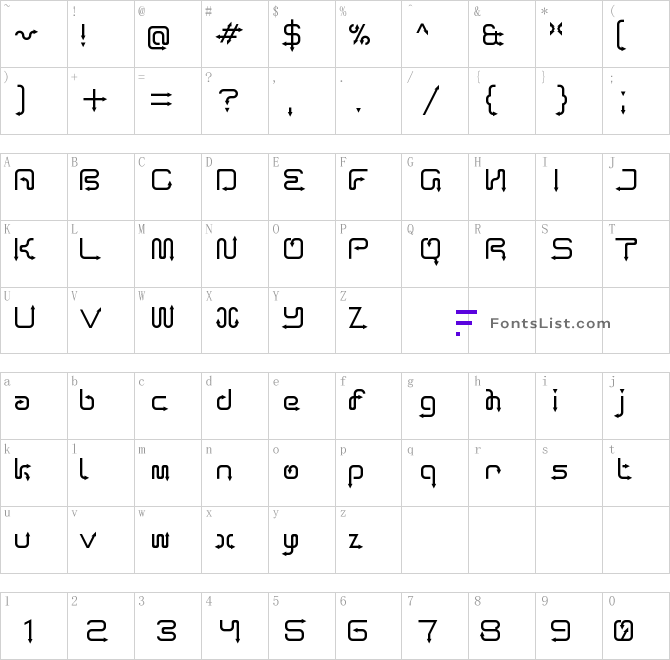
- Font Name:Arro Terminal
Arro-Terminal-Regular.ttf is a very beautiful artistic font, Arro-Terminal-Regular.ttf is widely used in the design and printing of various books and pictures,Arro-Terminal-Regular.ttf has a strong visual impact,Arro-Terminal-Regular.ttf is a commonly used font in newspapers, magazines and books, and is used in posters, e-commerce Poster design, store design, logo design, font design and other fields.Arro-Terminal-Regular.